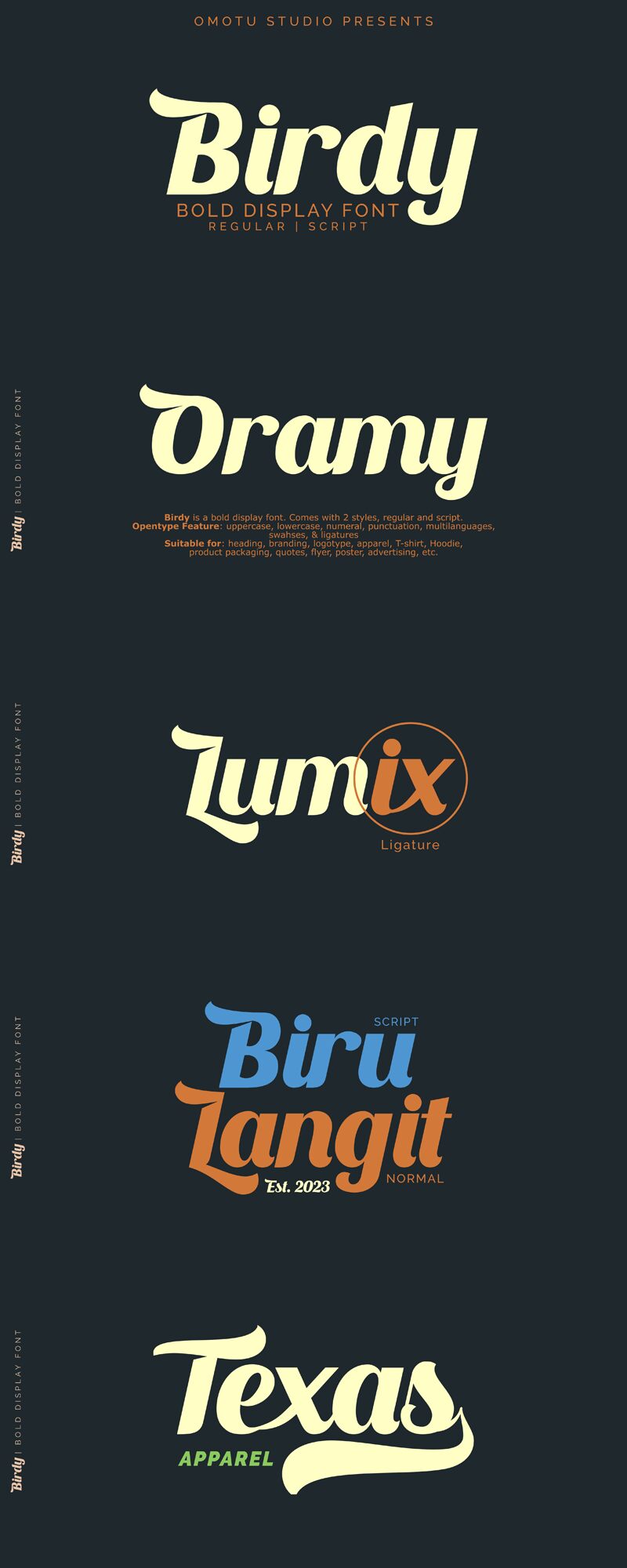
Birdy Script
Birdy Script font by Omotu Studio is a bold smooth brush script with a modern touch. Its handwritten style combines large capital letters and imperfectly curvy lowercase letters for an expressive look. A substantial amount of cursive detail enhances the font’s captivating presence.
A free calligraphy font, Birdy Script works for branding design, logos, t-shirts, packages, mugs, stationery cards, signage typography and so much more.